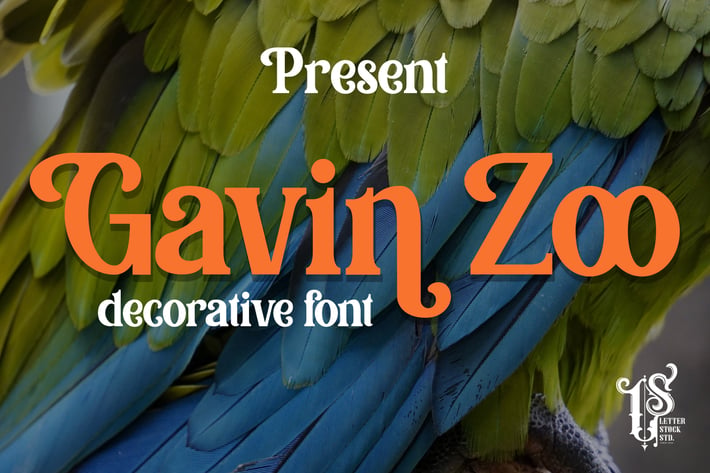
Gavin Zoo - Playful decorative font
Gavin Zoo is a decorative font that was inspired by lettering design that i saw on instagram, and it was crafted by hand to add a natural handmade feeling and i make it clean with pentool.
If you looking for decorative font that have a unique style for your title or even branding and logotype, Rilley Hwick is a great choice for that purpose.
Gavin Zoo font is very good looking in logotype, labels, decorative lettering, playful design, product packaging, invitation titled, advertising and others.